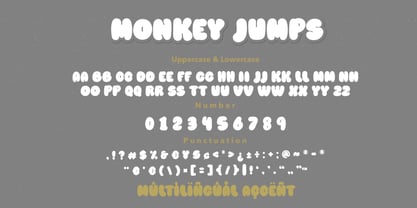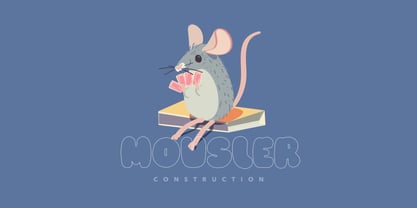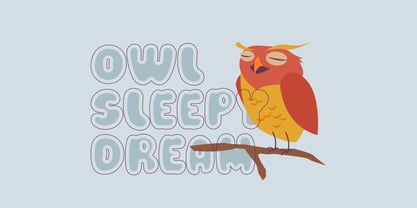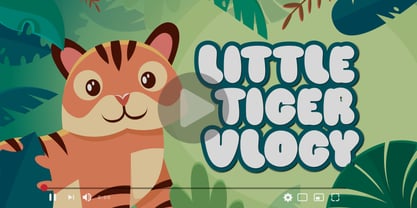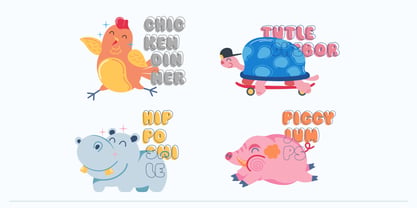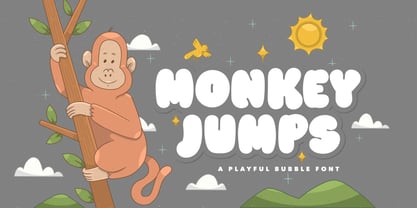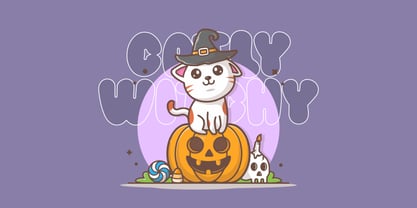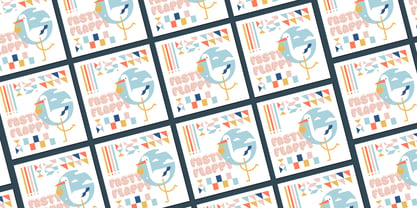
Monkey Jumps
by Bayuktx
The Monkey Jumps Font Family was designed by Bayu Aji Fais Mursid and published by Bayuktx. Monkey Jumps contains 1 styles. More about this family
Monkey Jumps – Playful Bubble Display Font Monkey Jumps a Playful Bubble Display Font brings cheerful energy and joyful personality to every design. Inspired by children’s illustrations and friendly cartoon lettering, this font features chunky rounded letterforms, soft curves, and a bouncy visual rhythm that feels fun, warm, and approachable. Each character is crafted with bold bubble shapes and smooth edges, making Monkey Jumps highly readable while maintaining a playful and expressive look. Its friendly construction makes it perfect for kids-focused projects, creative headlines, and designs that aim to feel happy and inviting. Designed to shine at large display sizes, Monkey Jumps adds charm and positivity to titles, logos, and visual storytelling. The font captures a sense of movement and playfulness, making every word feel lively and engaging. Whether used for educational content or fun branding, Monkey Jumps delivers a delightful display style that instantly connects with young audiences and playful themes. Key Features : * Uppercase & Lowercase * Numerals & Punctuation * Multilingual Support * PUA Encoded & OpenType Features * Playful Bubble Display Style * Thick, Rounded & Friendly Letterforms Suitable For : * Kids Branding & Logos * Children Books & Educational Designs * Posters, Headlines & Titles * Games & Cartoon Projects * Stickers & Merchandise * Social Media & Creative Content * Nursery & Playful Themes With Monkey Jumps a Playful Bubble Display Font, your designs come alive with joy, friendliness, and playful character — perfect for bright, fun, and kid-friendly creations.
Designers: Bayu Aji Fais Mursid
Foundry: Bayuktx